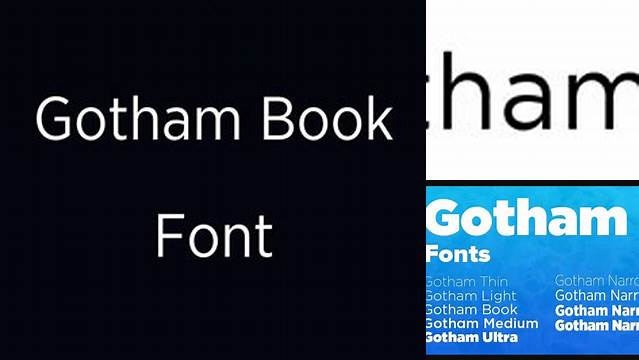
Gotham SSM Book Font: A Comprehensive Overview
Alright, let's kick things off with a deep dive into the Gotham SSM Book font. This isn't just any font; it's a modern classic. Designed by Hoefler & Co., Gotham is known for its clean lines, geometric shapes, and versatility. It's been used everywhere, from branding campaigns to book covers, and even by some pretty big names, like the Obama presidential campaign! The Gotham SSM Book variation is particularly popular because it's designed to be readable and stylish, making it ideal for body text in books, magazines, and online content. When you're looking for a font that's both elegant and functional, Gotham SSM Book is a fantastic choice. Finding it for free can be a bit of a treasure hunt, but don't worry, we'll cover that in detail. The key is to know what you're looking for and to be careful about where you get your downloads from. Always make sure the source is legit to avoid any nasty surprises, like malware. Remember, the best things in life (and fonts) are often free, but always stay safe!
Now, let's explore why Gotham SSM Book is so awesome. This font family includes different weights and styles, from light to bold, and it’s designed with both aesthetics and readability in mind. This makes it a great choice for a wide range of design projects. For example, using the light weight can give your text a sophisticated look, while the bold version grabs attention and makes statements. Understanding how to use these different weights can really enhance your design work. Gotham SSM Book is a sans-serif font, meaning it doesn't have the little decorative strokes (serifs) at the end of each letter. This gives it a sleek, modern feel that works well in both print and digital formats. The clarity of Gotham SSM Book makes it perfect for long-form text, ensuring your readers can easily follow along. Think about how smoothly the text flows when you read it; that's the power of a well-designed font like Gotham SSM Book. Using this font can level up any design!
One of the coolest things about the Gotham family is its geometric design. Each letter is based on simple shapes, which creates a sense of balance and harmony. This is one reason why it looks so good in headlines and logos. The Gotham SSM Book version also includes a range of character sets, supporting various languages and special characters. This makes it a versatile tool for designers and writers all over the world. If you're working on a project that requires multilingual support, this is a huge plus! The different styles available in the Gotham family offer a lot of creative flexibility. Experimenting with different weights and styles can help you nail the perfect look for any project.